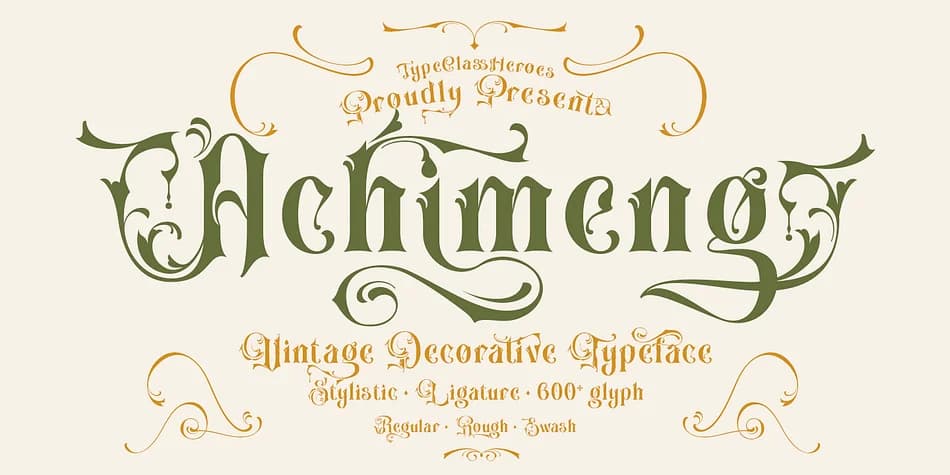
Picture designing a high-end wedding invitation suite or restaurant menu where classic elegance matters, and you'll quickly reach for something with presence and personality. Achimeng, created by TypeClassHeroes, is a decorative serif that brings exactly that: sturdy letterforms layered with subtle leaf details that feel organic without losing refinement. The typeface walks a line between boldness and botanical softness, making it stand out in contexts where generic fonts would fade.
You'll find this font pulling its weight across formal applications. Restaurant branding and high-end menu design benefit from its ornamental character; boutique product labels, especially for artisanal or natural goods, let the leaf accents shine; wedding stationery and invitation design give it room to breathe at larger sizes; book cover typography and magazine mastheads gain sophistication from its serif structure. The font ships in both regular and rough versions, each with decorative swash alternates and ligatures that let you dial up the ornamental feel as needed.
Achimeng Font is a decorative font that shines as a display or heading face. Pair it with a clean sans-serif or serif font for body text β the contrast creates a clear hierarchy while the two styles stay balanced and easy to read.